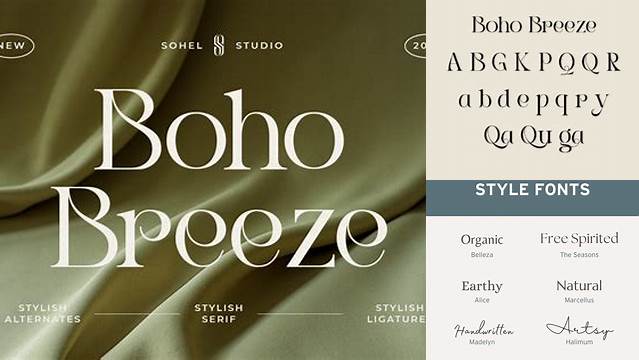
Hey guys! Are you looking to add a touch of whimsy and free-spirited charm to your designs? Look no further! The Boho Breeze font is here to rescue your creative projects. In this article, we'll dive deep into everything you need to know about this beautiful font, including where to find a free download, how to use it, and why it's perfect for your next big thing. So, grab a cup of coffee (or tea, if that's your vibe) and let's get started!
What is Boho Breeze Font?
The Boho Breeze font is a typeface designed to evoke the essence of bohemian aesthetics. Think flowing dresses, dreamy landscapes, and a general sense of freedom. It often features elegant curves, playful swashes, and a slightly imperfect, hand-drawn feel, giving it a unique character that stands out. This font is all about capturing that relaxed, artistic vibe that makes boho style so appealing.
Whether you're working on wedding invitations, branding materials, or social media graphics, Boho Breeze can add a touch of magic. The font's versatility makes it suitable for a wide range of projects, and its distinctive style ensures that your designs will always have a memorable impact. Many designers love it for its ability to blend simplicity with sophistication, creating a look that is both modern and timeless.
Why Choose Boho Breeze for Your Projects?
Choosing the right font can make or break a design, and Boho Breeze offers several compelling reasons to be your go-to choice. First and foremost, its aesthetic appeal is undeniable. The font exudes a sense of creativity and individuality that can instantly elevate your project.
But beyond aesthetics, Boho Breeze is also incredibly versatile. It works well in both headlines and body text, making it suitable for a variety of applications. Its legibility is also a plus, ensuring that your message is communicated clearly, even in smaller sizes. Furthermore, the availability of a free download makes it accessible to everyone, regardless of their budget.
For designers who want to add a personal touch to their work, Boho Breeze offers a unique opportunity to stand out from the crowd. Its distinctive style is sure to capture attention and leave a lasting impression.
Using Boho Breeze Font in Graphic Design
Boho Breeze is a fantastic font for graphic design because it's super versatile. Whether you're whipping up logos, posters, or social media graphics, this font can add a touch of personality and charm. For logos, pair Boho Breeze with a simpler sans-serif font to create a balanced and memorable brand identity. Use it in headings and titles to draw attention and convey a sense of creativity.
In posters and flyers, Boho Breeze can be used to create eye-catching designs that stand out from the crowd. Experiment with different sizes and colors to see what works best for your project. For social media graphics, use Boho Breeze to add a touch of whimsy to your posts. It's great for quotes, announcements, and promotional content. Just make sure to keep the text legible and easy to read on smaller screens.
Boho Breeze Font for Wedding Invitations
If you're planning a bohemian-themed wedding, Boho Breeze is the perfect font for your invitations. Its elegant curves and playful swashes can add a touch of romance and sophistication to your stationery. Use it for the bride and groom's names, wedding date, and other important details. Pair it with delicate floral illustrations or watercolor accents to enhance the overall aesthetic. To make your invitations even more special, consider using a high-quality paper stock and envelope. This will give your invitations a luxurious feel and make a lasting impression on your guests. With Boho Breeze, your wedding invitations will be as unique and beautiful as your love story.
Pairing Boho Breeze with Other Fonts
To create a balanced and visually appealing design, it's important to pair Boho Breeze with complementary fonts. Sans-serif fonts like Montserrat, Open Sans, and Lato work well with Boho Breeze because they provide a clean and modern contrast. Serif fonts like Garamond and Times New Roman can also be used, but it's important to choose a font that isn't too ornate or overwhelming. Experiment with different font pairings to see what works best for your project.
Final Thoughts on Boho Breeze Font and Free Downloads
So, there you have it! Everything you need to know about the Boho Breeze font and where to find a free download. This font is a fantastic way to add a touch of bohemian charm to your designs, whether you're working on wedding invitations, branding materials, or social media graphics. Just remember to always check the license agreement and download from reputable sources to ensure you're using the font legally and safely. Now go forth and create some beautiful designs with Boho Breeze! Happy designing, folks!